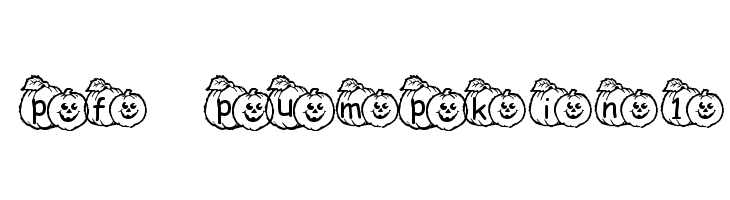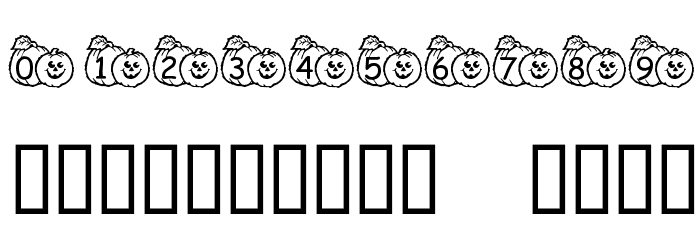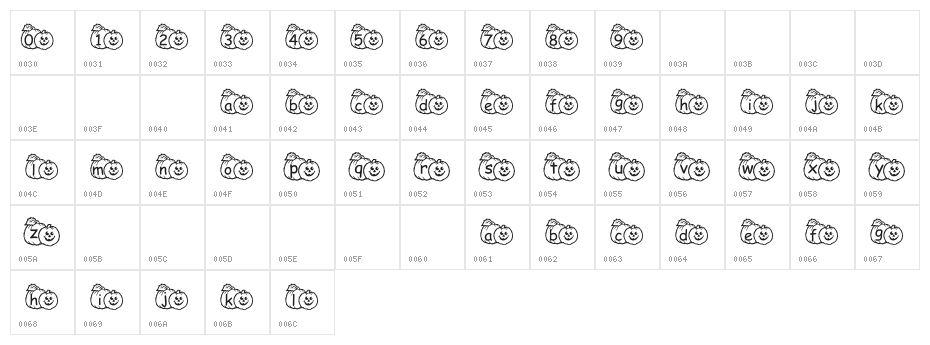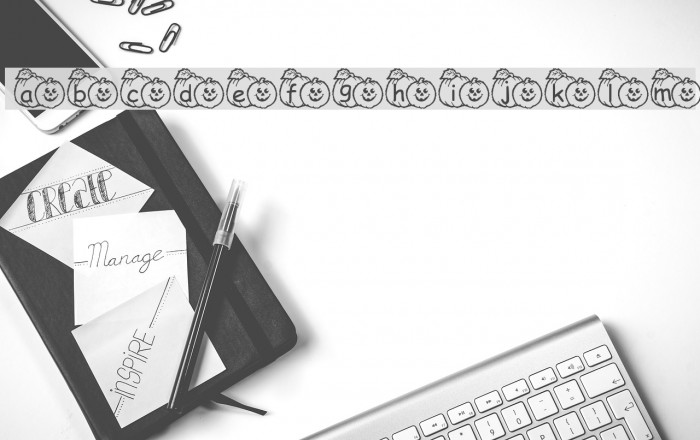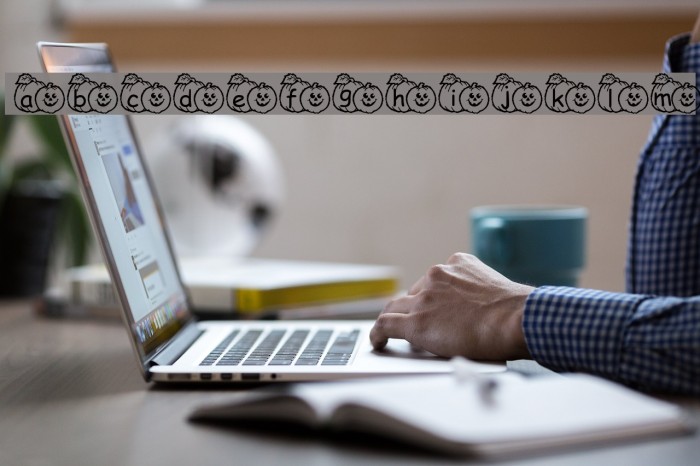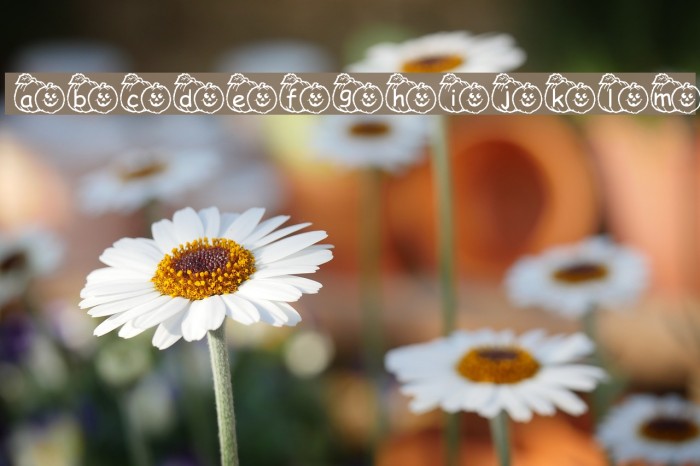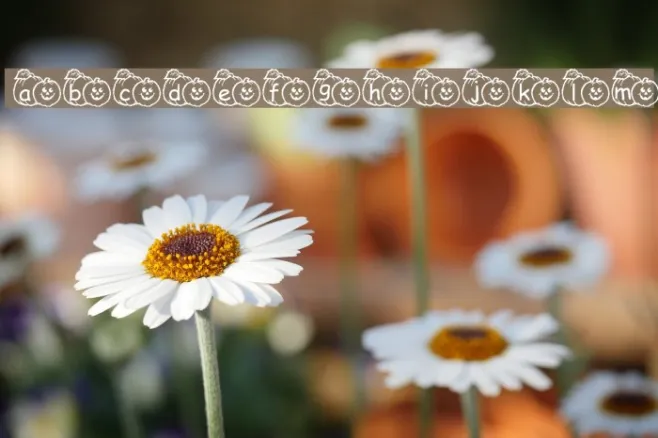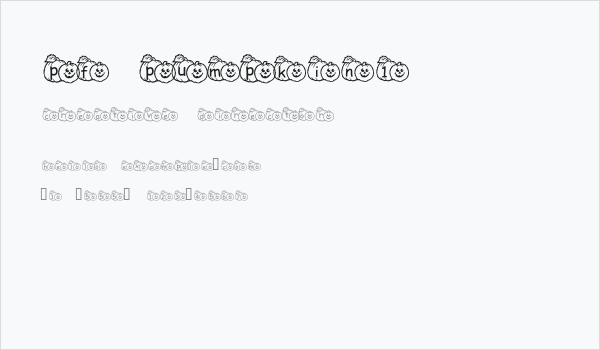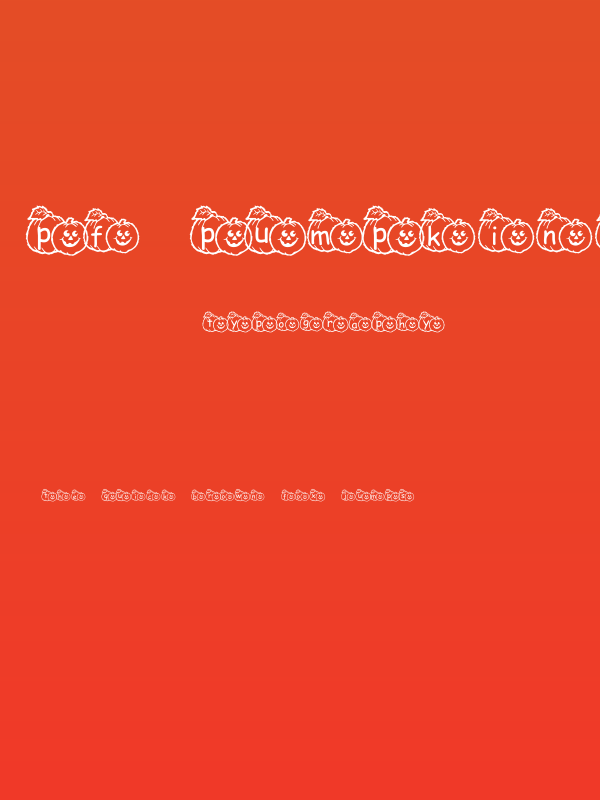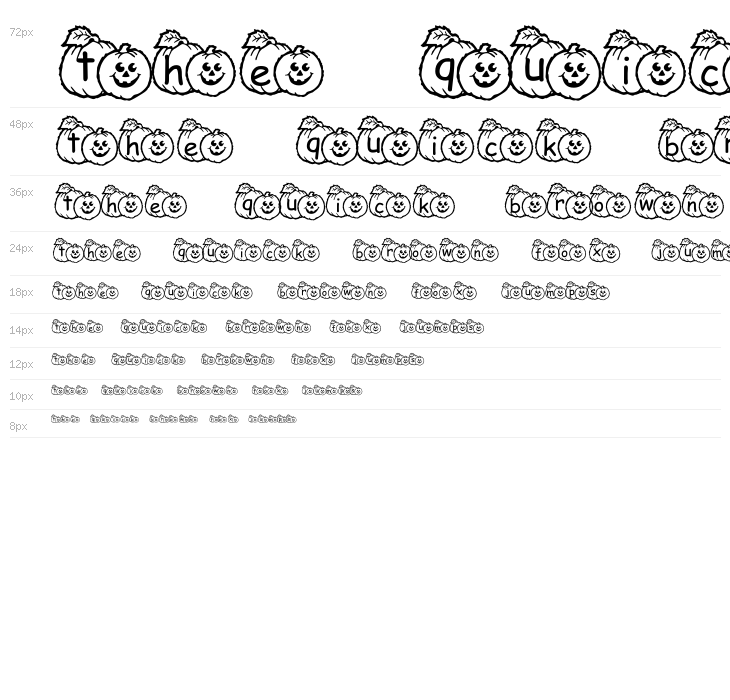
pf_pumpkin1 Font
This playful and whimsical font features each character enclosed within a pumpkin shape, complete with a smiling face and a leaf on top. The design is highly decorative, making it ideal for festive occasions, particularly around Halloween. The letters are bold and cartoonish, with a consistent style that adds a fun and lighthearted touch to any project. The numbers and special characters follow the same theme, ensuring a cohesive look across all text elements.
| Use Case | Headlines, Logos, Decorative text |
| Proposed Projects | Ideal for Halloween-themed invitations, party decorations, children's books, and festive banners. |